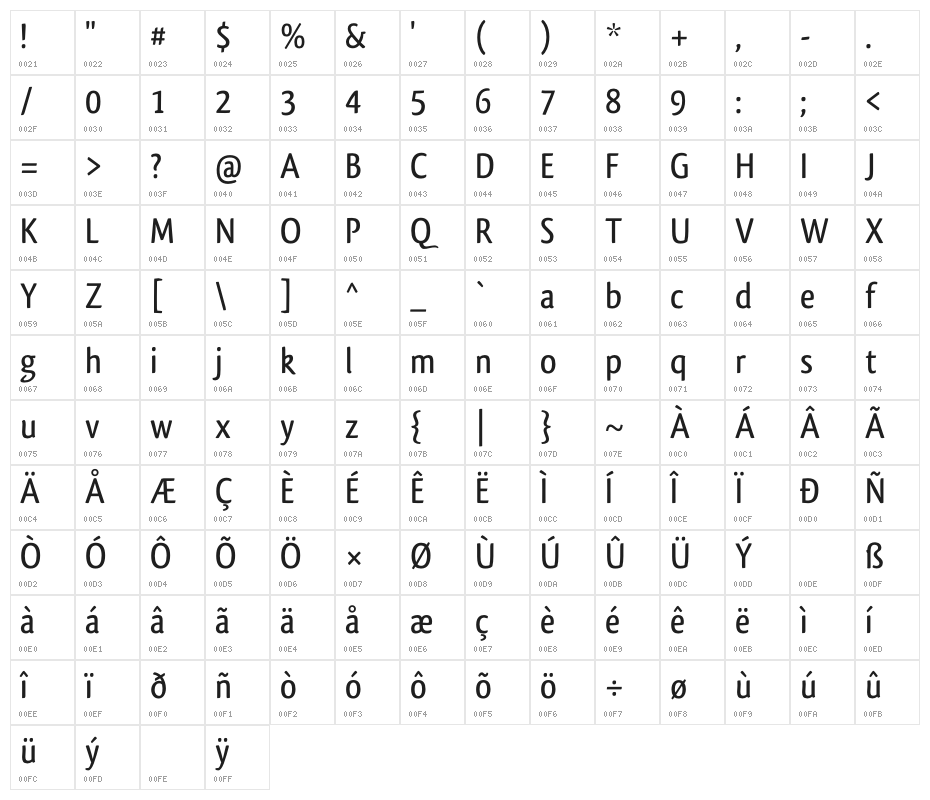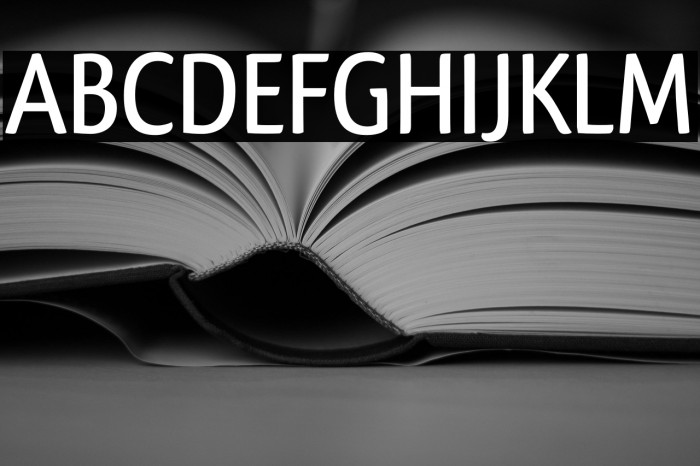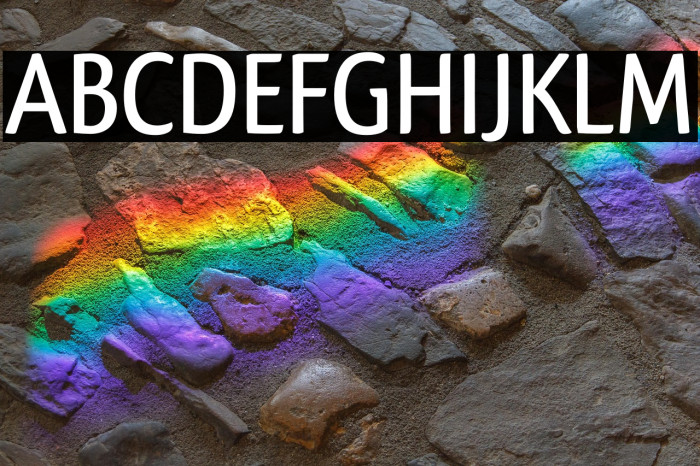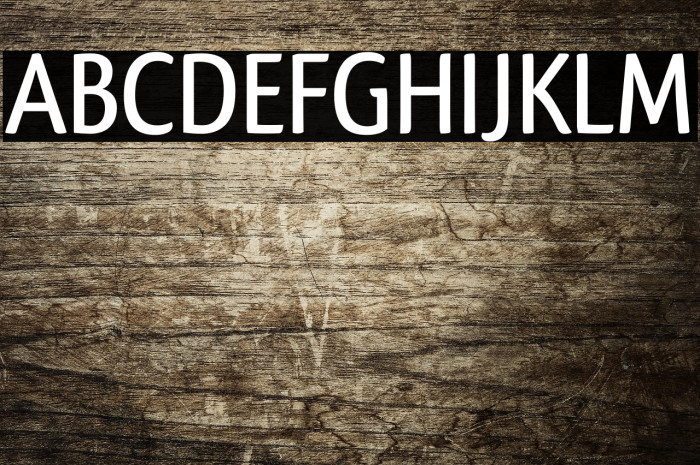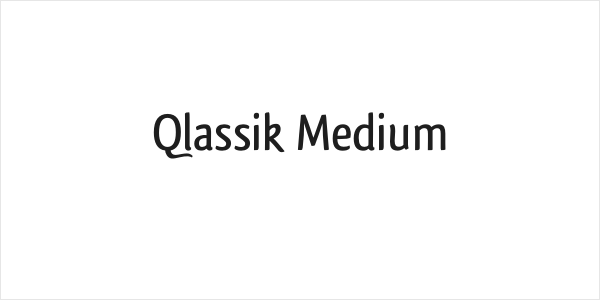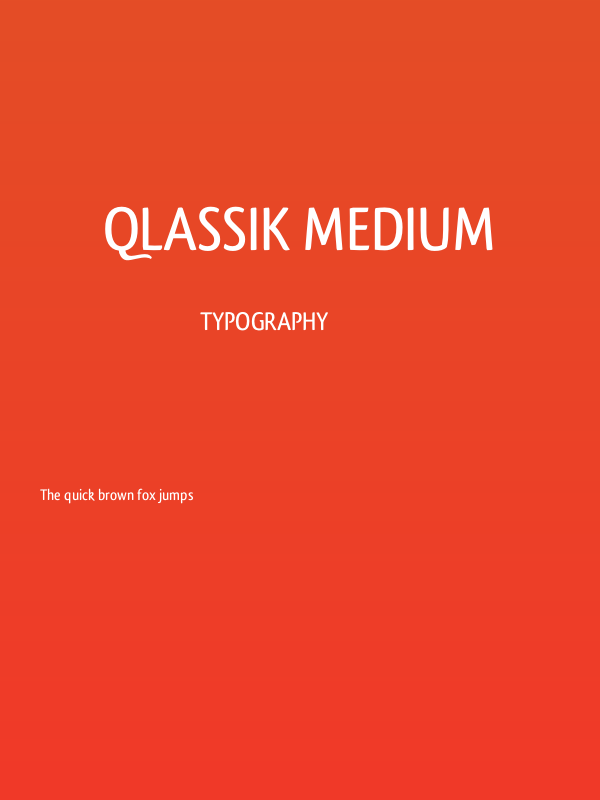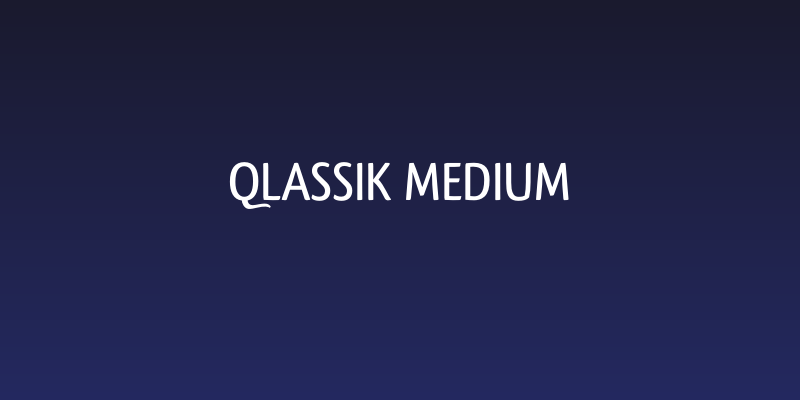
Qlassik Medium Font
Qlassik Medium Description
This font features a clean and modern design with smooth curves and a balanced structure. The characters are slightly condensed, providing a sleek and professional appearance. The uppercase letters are bold and assertive, while the lowercase letters maintain a friendly and approachable feel. The numerals are clear and easy to read, making them suitable for both digital and print applications. The special characters are well-integrated, ensuring consistency across all glyphs. This font is versatile, suitable for a wide range of design projects.